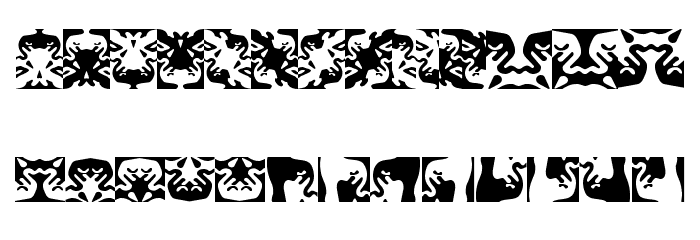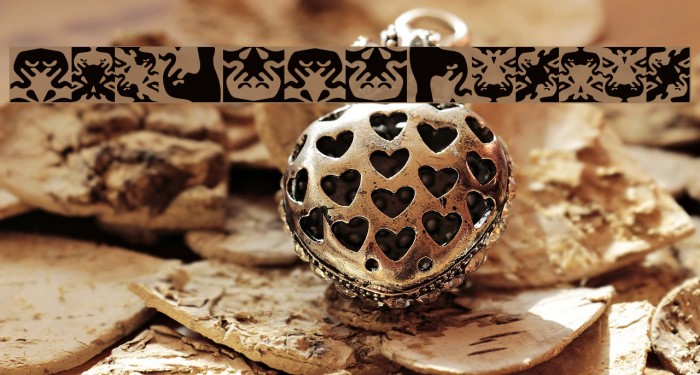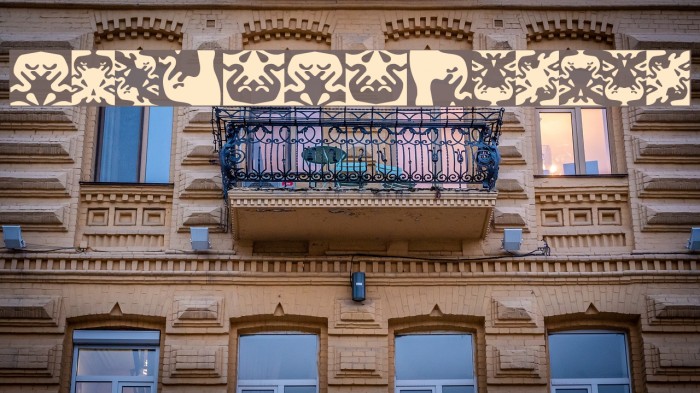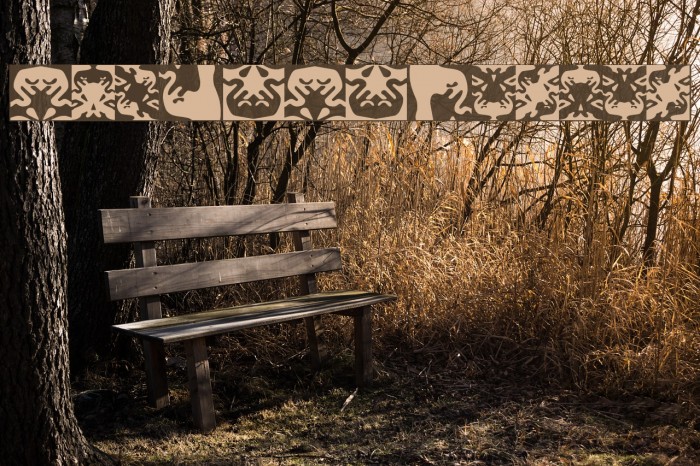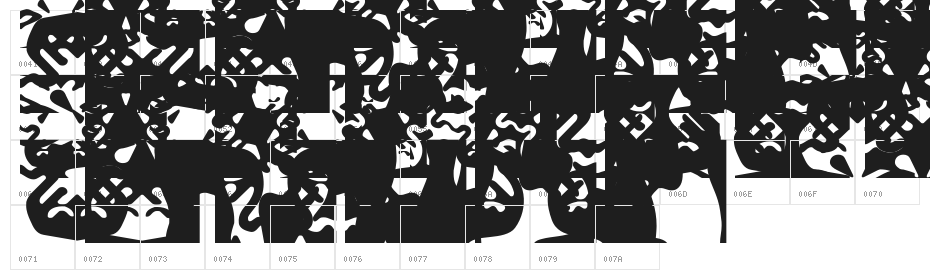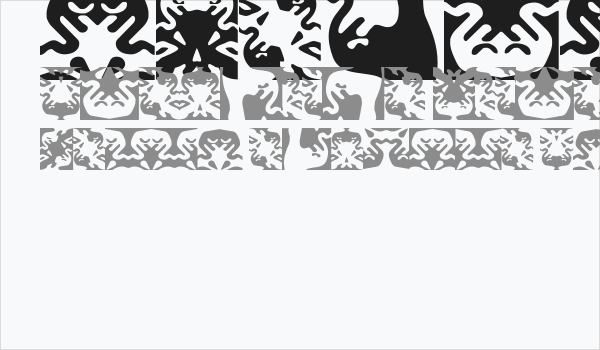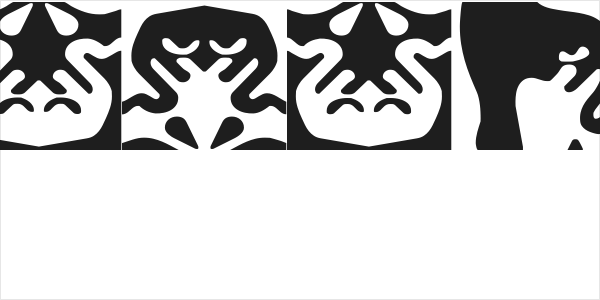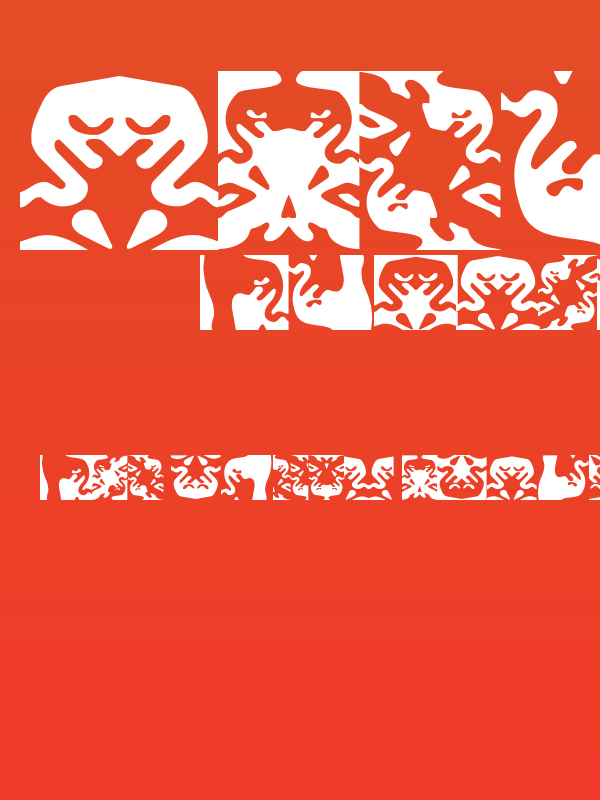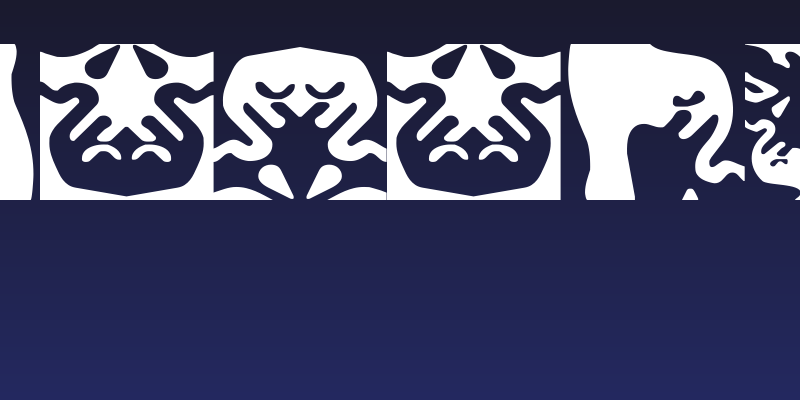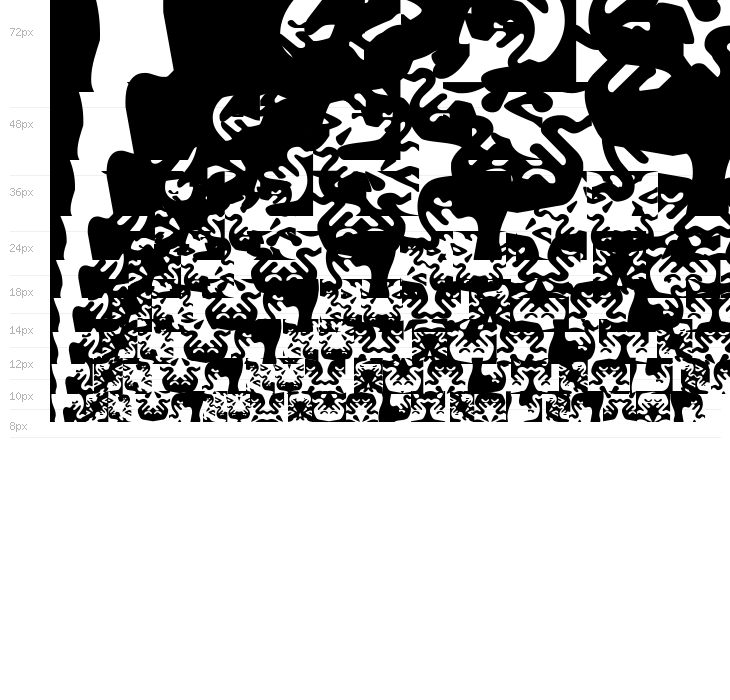
ObeyRorschach Font
This font features a highly decorative and abstract design, reminiscent of inkblot patterns. Each character is intricately crafted with symmetrical shapes that create a sense of mystery and artistic flair. The bold black and white contrast enhances the visual impact, making it stand out as a unique and eye-catching typeface. The intricate details within each letterform suggest a sense of depth and complexity, ideal for projects that require a bold statement or an artistic touch. Its distinct style is suitable for creative and unconventional uses, where traditional readability is not the primary focus.
A decorative, abstract font with inkblot-like patterns and high contrast.
- Proposed Projects: Ideal for artistic posters, album covers, and creative branding projects.
- Use Case: Logos, Posters, Artistic Designs